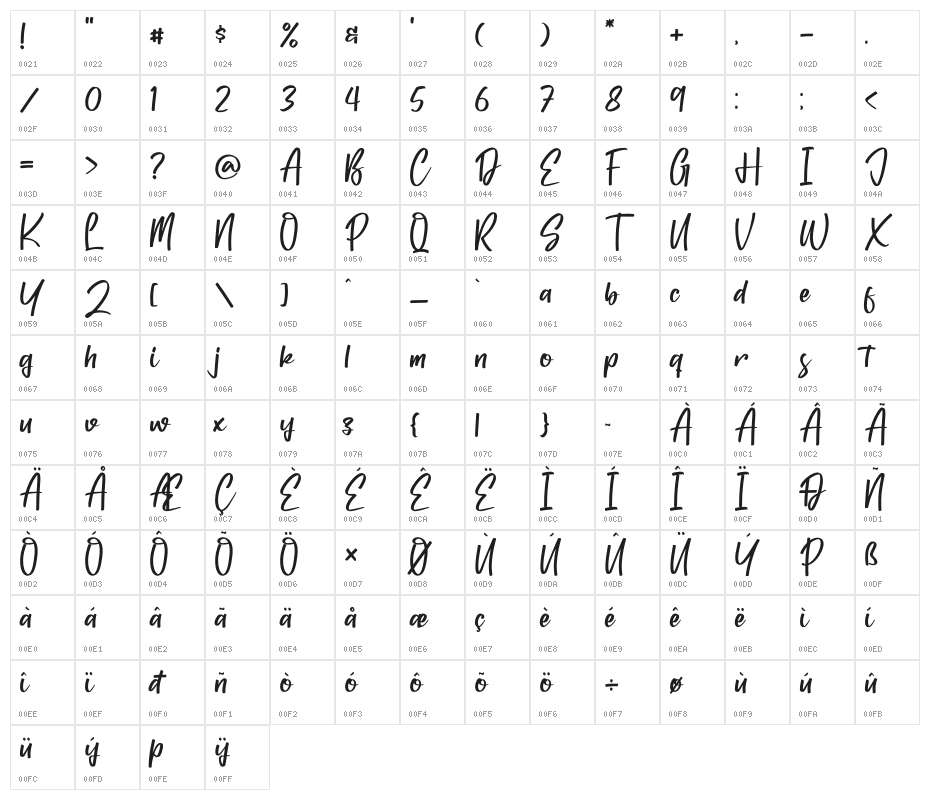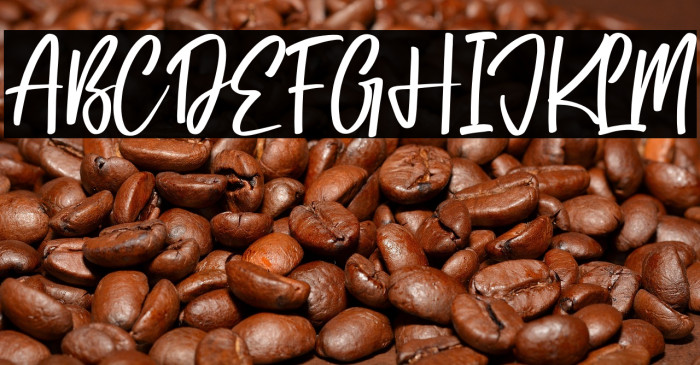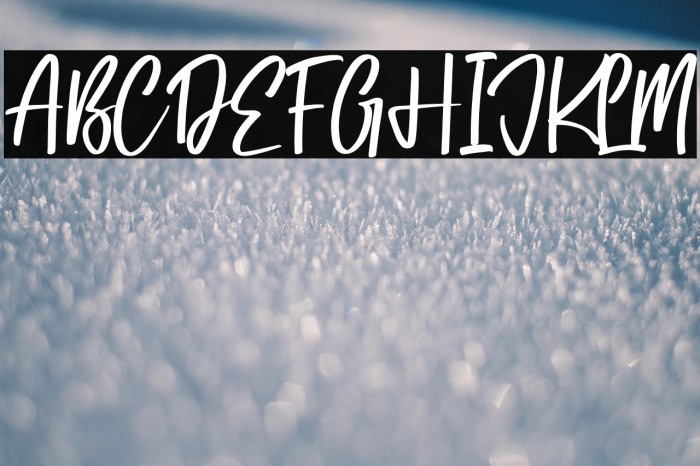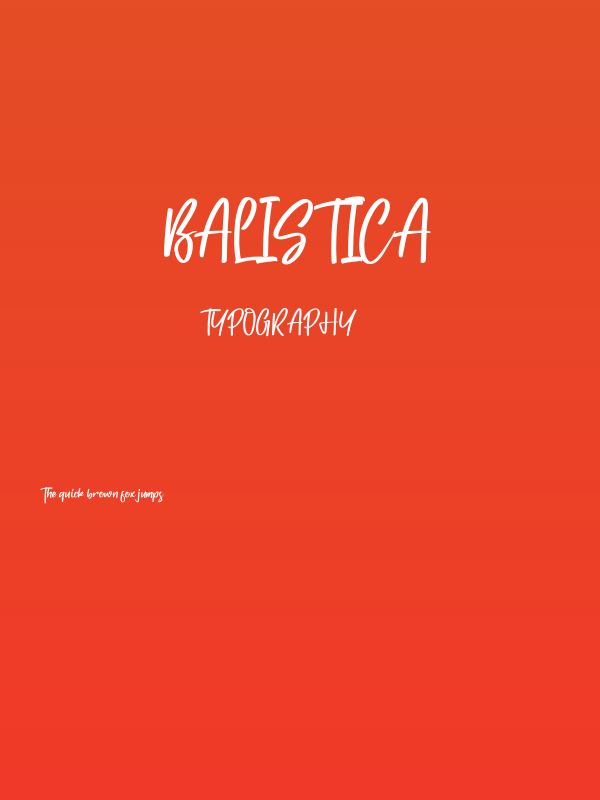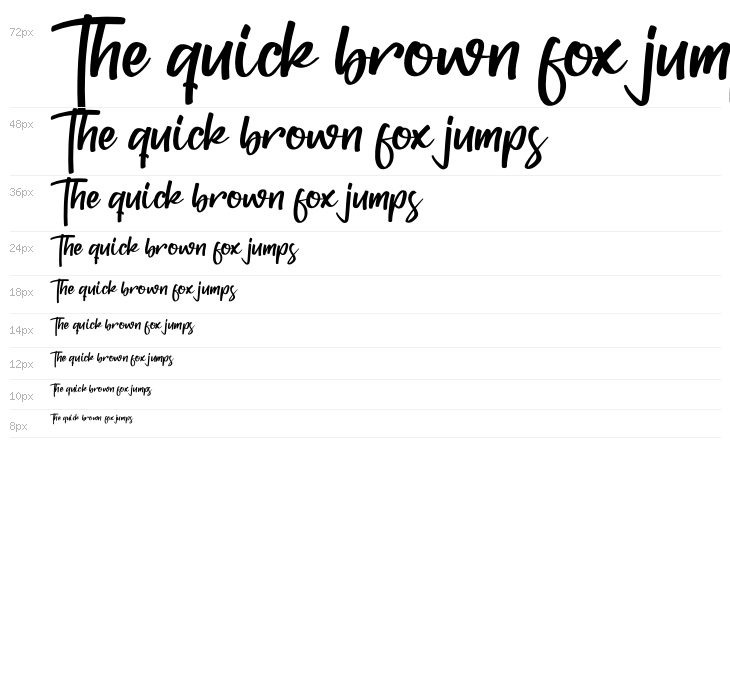
Balistica Font
Balistica Description
This font features a lively and dynamic handwritten style, characterized by its fluid and expressive strokes. The uppercase letters are bold and slightly slanted, giving a sense of movement and energy. The lowercase letters maintain a consistent flow, with some characters featuring unique loops and curves that add to the font's playful nature. Numbers are clear and legible, while special characters retain the same energetic style, making them suitable for creative and informal designs. The overall appearance is both modern and approachable, perfect for projects that require a personal touch.
| Use Case | Logos, Headlines, Social media graphics |
| Proposed Projects | Ideal for greeting cards, invitations, social media graphics, and branding materials that require a personal and lively touch. |